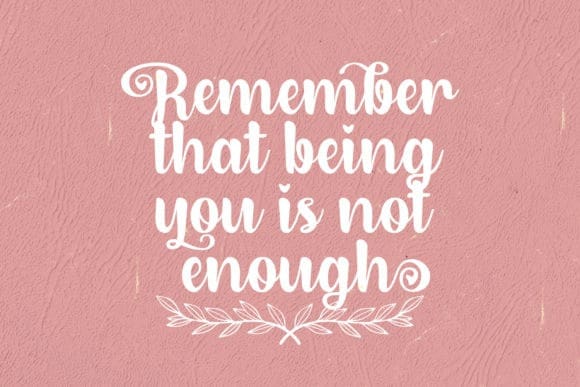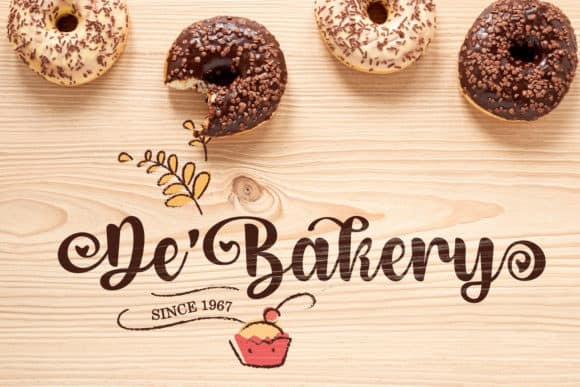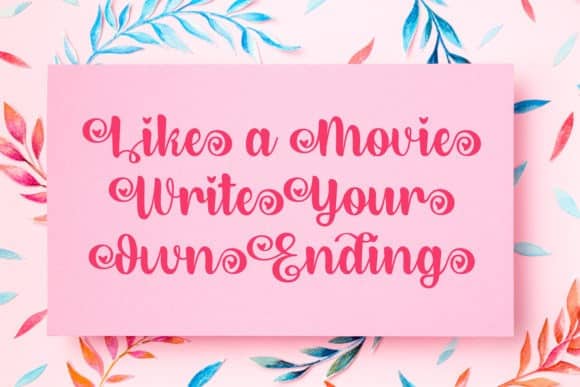
Dirly Belly Script Font is new beautiful script font. This font is great for branding design, menu designs, product packaging, quote or simply design with stylish text overlay to any background image. Made from font designer named StringLabs. It’s an exquisite handwritten font, masterfully designed to become a true favorite. It maintains its classy calligraphic influences while feeling contemporary and fresh. Fall in love with it and bring your projects to the highest levels!